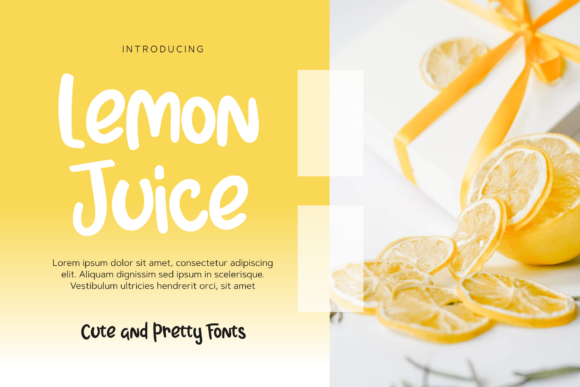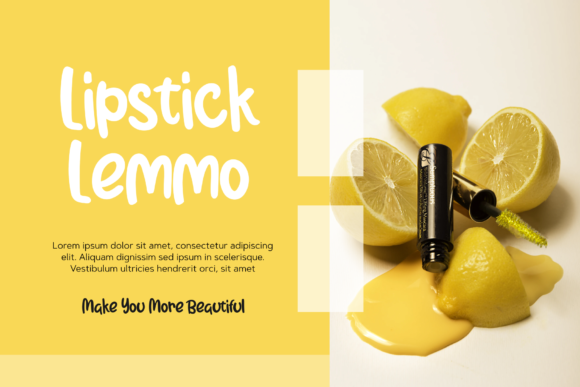
Lemon Juice Font
About Lemon Juice Font
Lemon Juice is an incredibly cute and friendly font. It’s well suited for product labels, fashion and clothing products, as well as any other design project that needs a sweet twist.